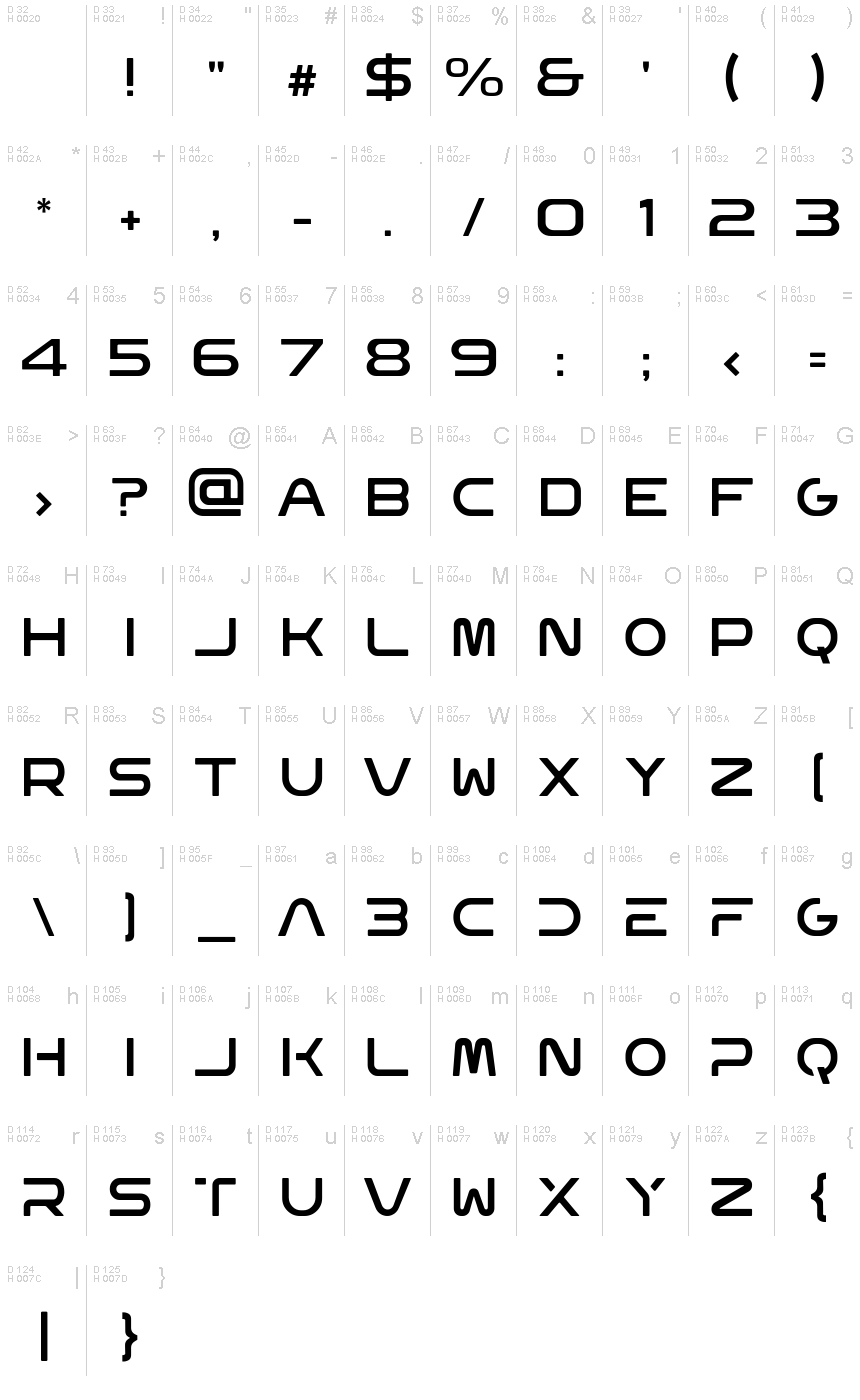
VALKO CAPELA
Valko Capela, designed by UI Creative, is a captivating display font that exudes a distinct techno-inspired aesthetic. Its expanded width and bold, geometric letterforms command attention, evoking a sense of modern sophistication and technological prowess. The font's sharp, angular edges and clean lines create a striking visual impact, making it a compelling choice for a wide range of design applications.
Valko Capela's versatility shines through its versatile applications. Its bold, attention-grabbing presence makes it an excellent choice for headlines, logos, and branding elements, where it can effectively convey a sense of technological innovation and cutting-edge style. Additionally, the font's expanded width and distinctive character lend themselves well to creating impactful design compositions, whether in digital media, print materials, or packaging design.